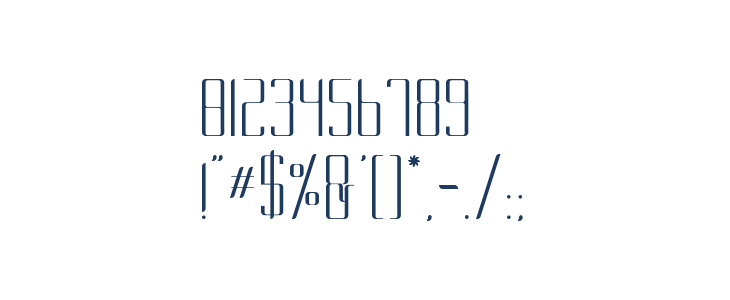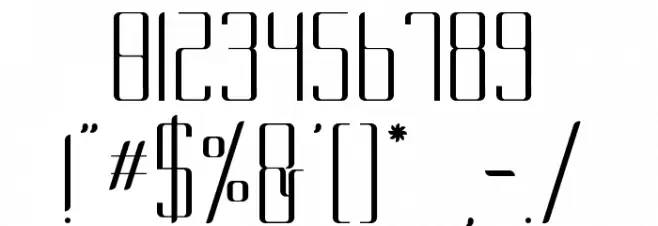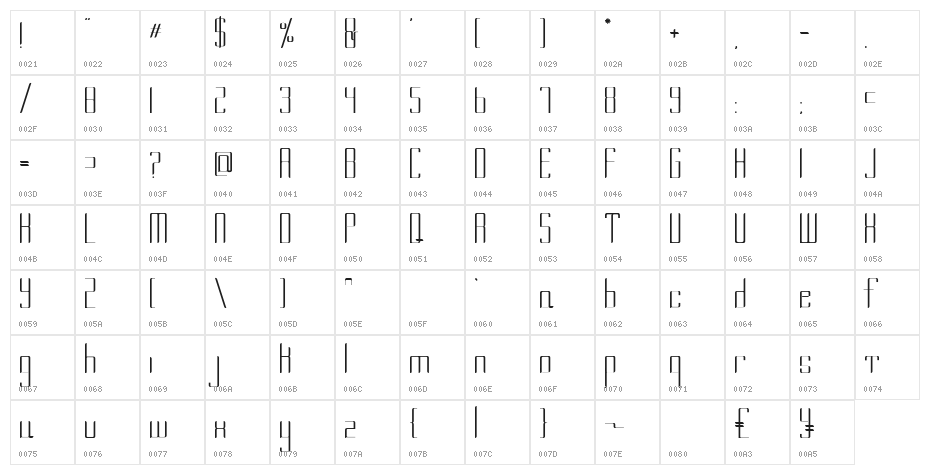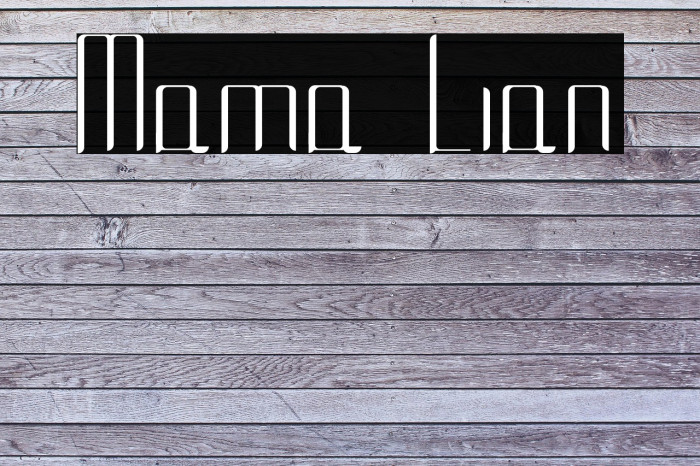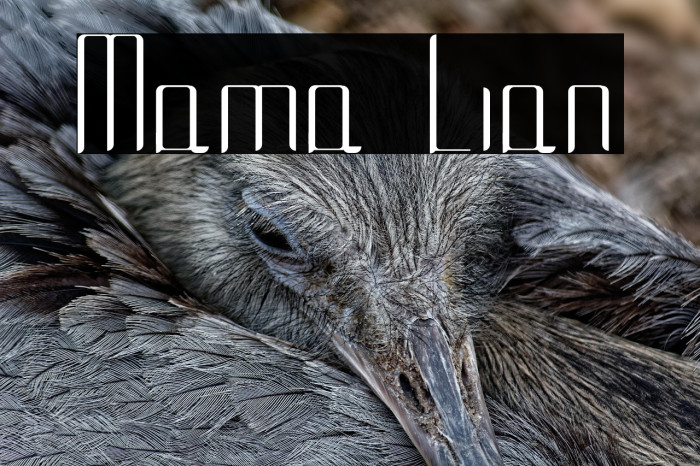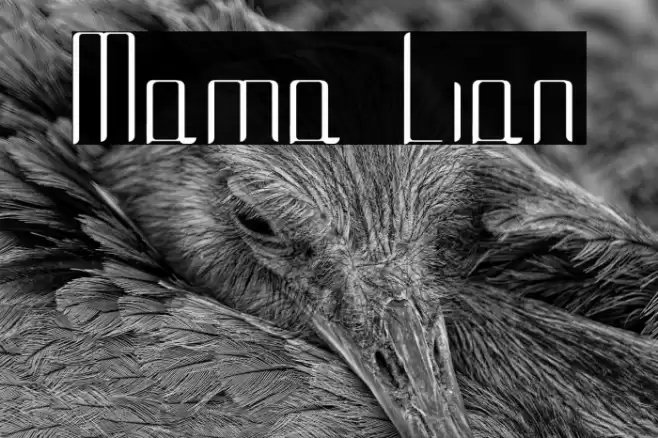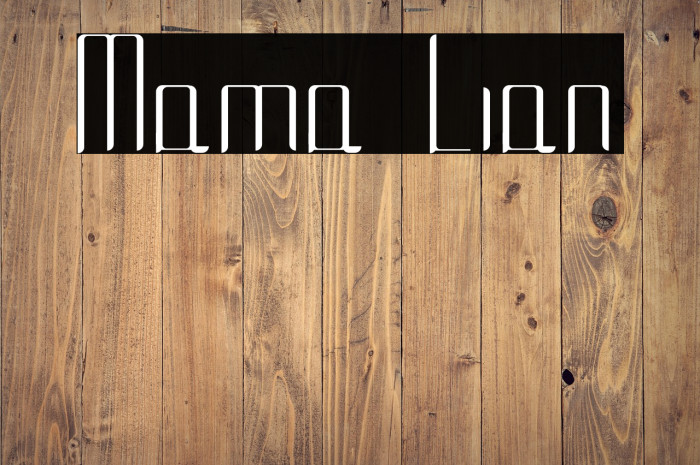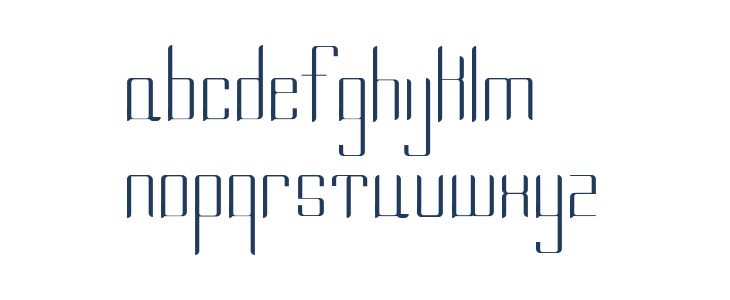
Mama Lian Font
Mama Lian Description
This font features a unique and modern design with elongated, narrow characters that give it a sleek and futuristic appearance. The uppercase and lowercase letters maintain a consistent height, creating a uniform look. The strokes are thin and consistent, with minimal variation in thickness, contributing to a clean and streamlined aesthetic. The characters are slightly condensed, enhancing the font's modern appeal. The numerals and special characters follow the same design principles, ensuring a cohesive look across all elements. This font is ideal for projects that require a contemporary and stylish touch.
| Proposed Projects | Ideal for tech branding, modern advertising, futuristic posters, and digital interfaces. |